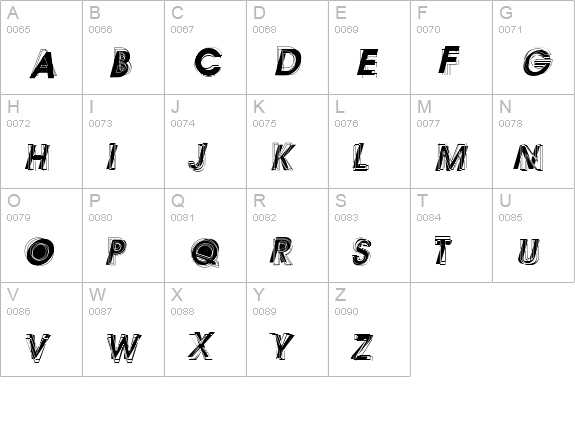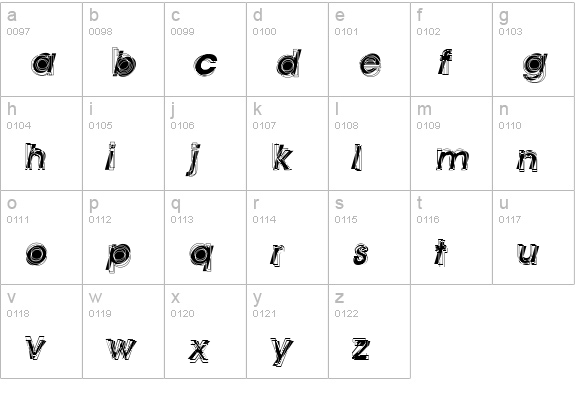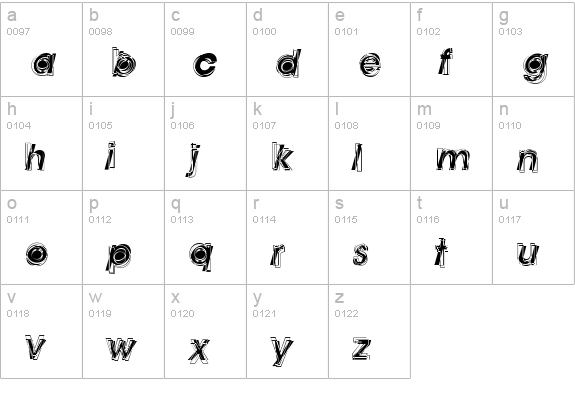
Astigma Regular Font Details
Astigma Regular is the standard, neutral variant in the Astigma typeface family \xE2\x80\x94 well suited to general body text, paragraphs, and standard typographic work.